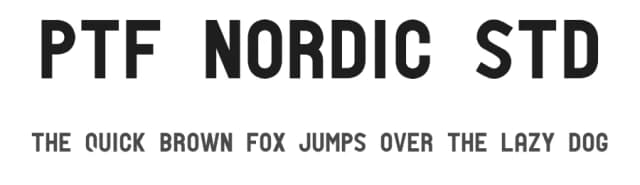
About PTF Nordic Font
PTF Nordic is a sans-serif font designed by prismtone(designer). It includes 221 glyphs, a regular weight, TTF (TrueType) format, and 216 languages. PTF Nordic is free to download; check the license details on this page before commercial use. Sans-serif fonts like PTF Nordic work best for clean body text, user interfaces, branding, and modern layouts.
PTF Nordic Font is a versatile sans-serif font that works for both headings and body text. Pair it with a contrasting serif or slab serif font to add visual interest and a clear distinction between titles and body copy.